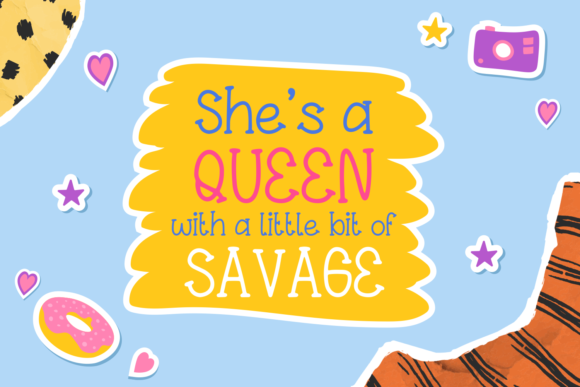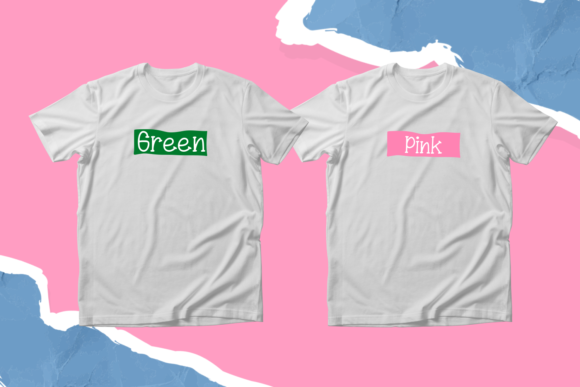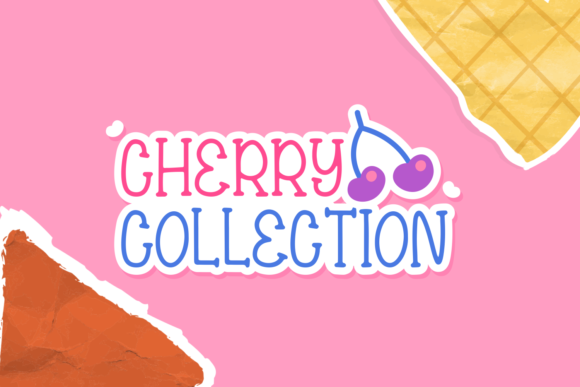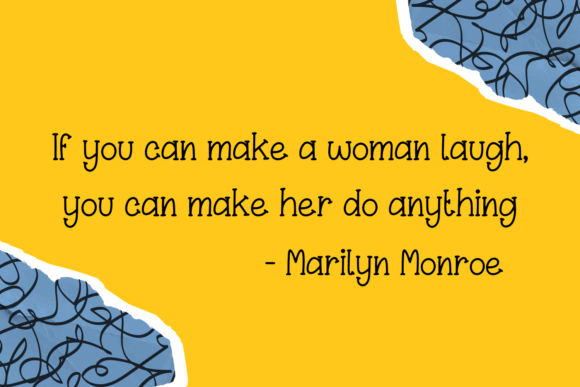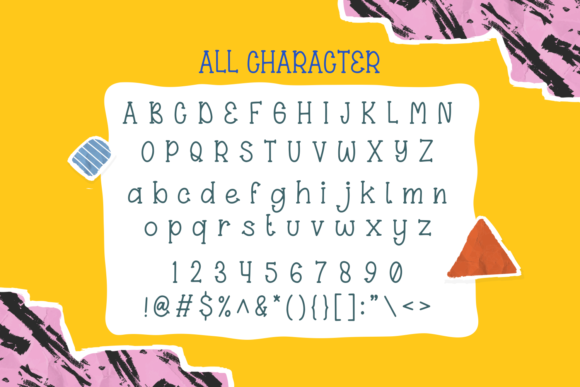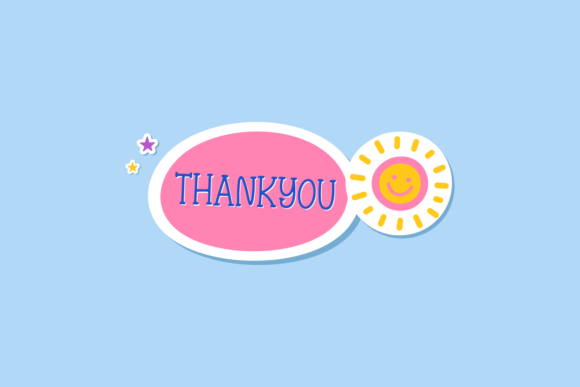
Introduction to Queen Sipur Font
Queen Sipur is a playful and friendly handwritten font.
Suitable to a wide variety of designs due to its neat and simple style, this font has the potential to become your favorite go-to font, no matter the occasion .